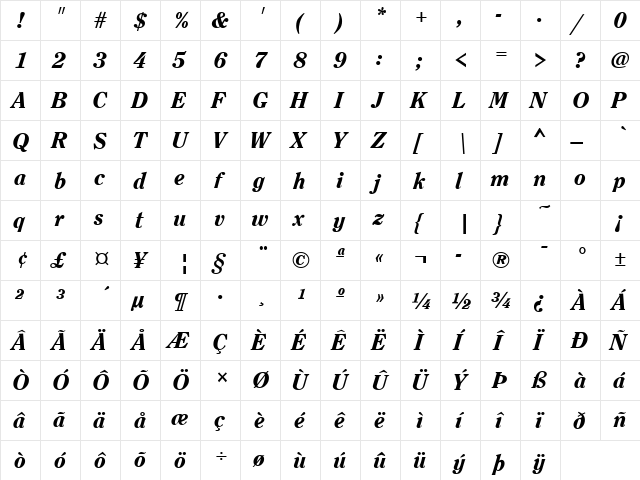
ClearfaceH Bold Italic
Design Context for ClearfaceH Typeface
ClearfaceH is a composed and adaptable typeface that performs quietly and consistently across a wide range of design contexts. Its italic angle brings a sense of urgency and motion to the letterforms. Its bold stroke weight gives it real presence on the page.
Pro Tip: Use ClearfaceH for emphasis, pull quotes, and subheadings where its slanted energy can add rhythm to the layout.